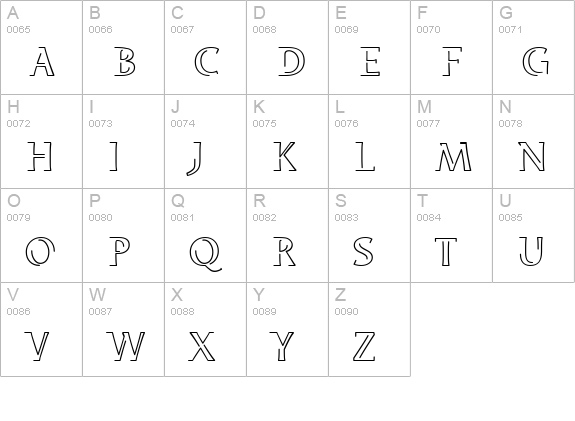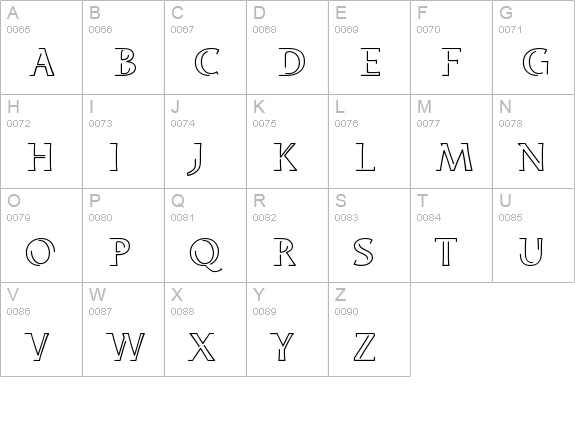
Odense Neon Font Details
Odense Neon is a striking and contemporary display font that emanates a vibrant energy and modern aesthetic. With its sleek lines and bold presence, this font is perfect for making a statement in any design project. Whether you're looking to add a pop of color to a poster, create eye-catching headlines, or design a trendy logo, Odense Neon is sure to captivate attention. This versatile font is ideal for a variety of design applications, from branding and advertising to social media graphics and signage. Its unique neon-inspired style adds a touch of urban flair and edginess to any project, making it a standout choice for designers seeking to make an impact. Best of all, Odense Neon is available for free download at FontsMarket.com, allowing you to unleash your creativity without any cost constraints. Don't miss out on this opportunity to add a touch of neon brilliance to your designs with Odense Neon font. Download it today and let your creativity shine!